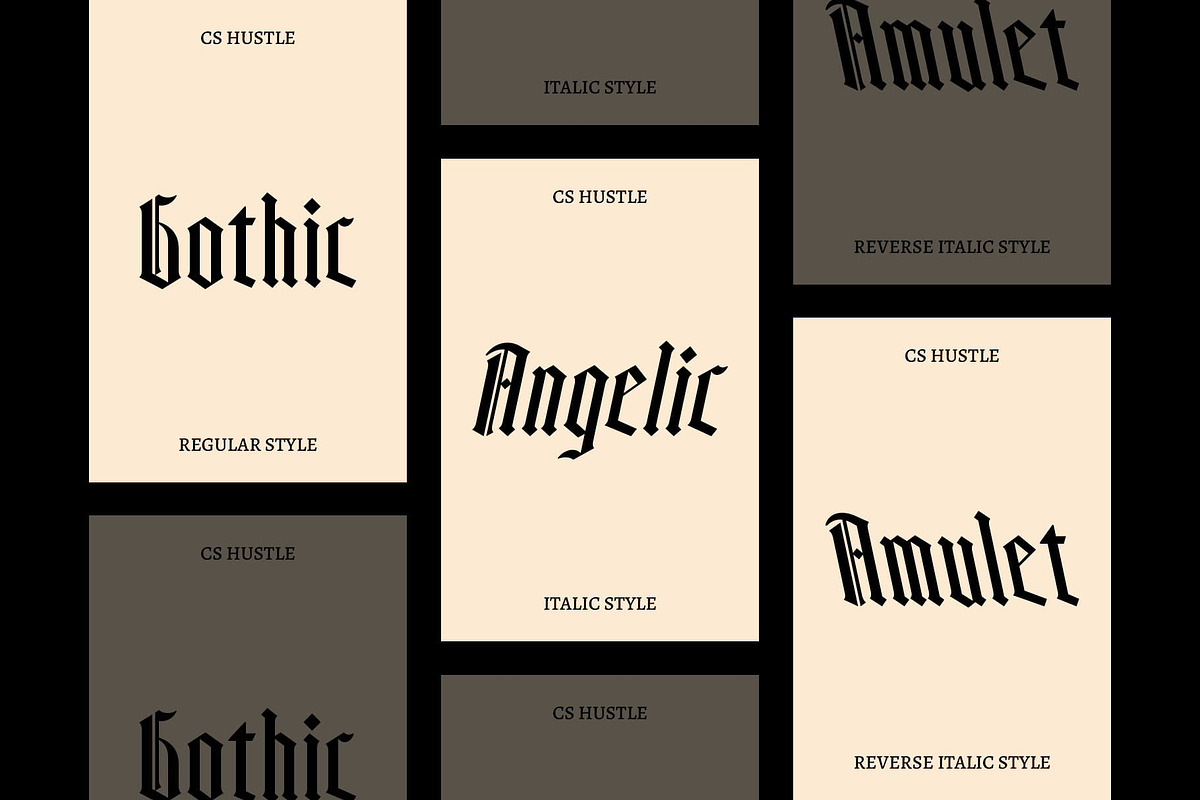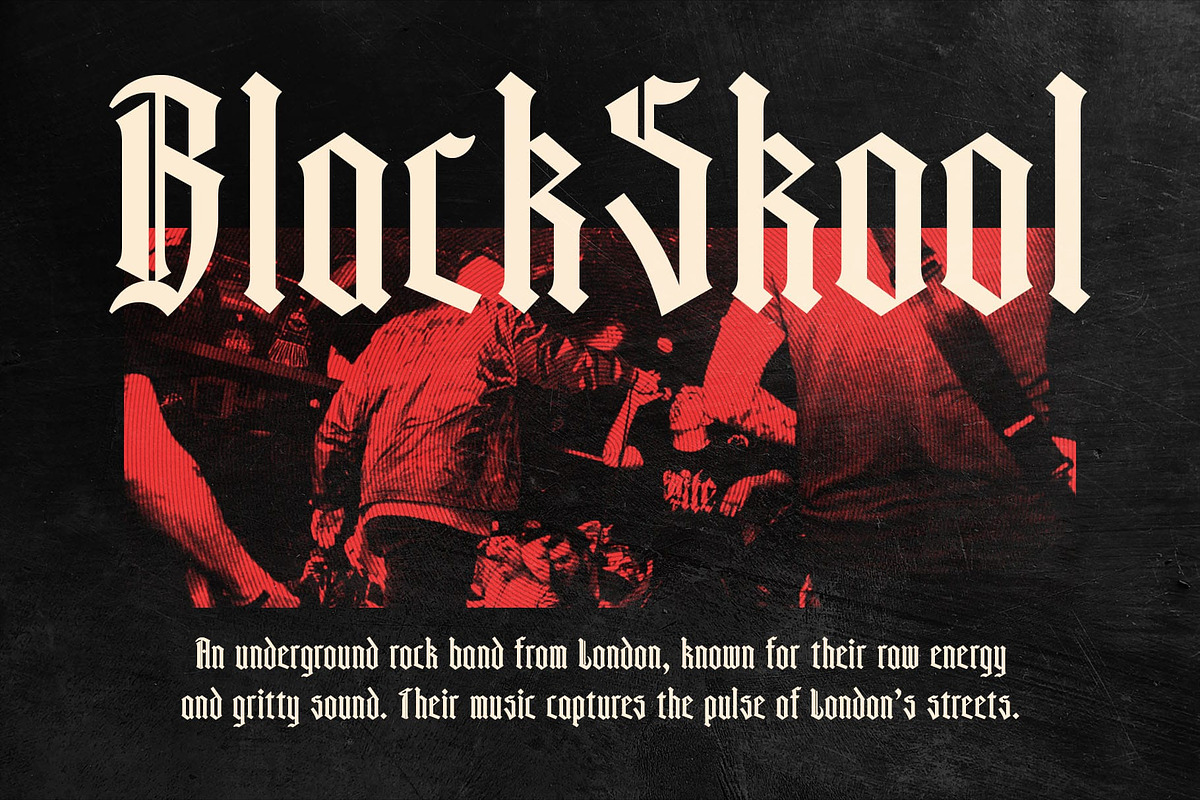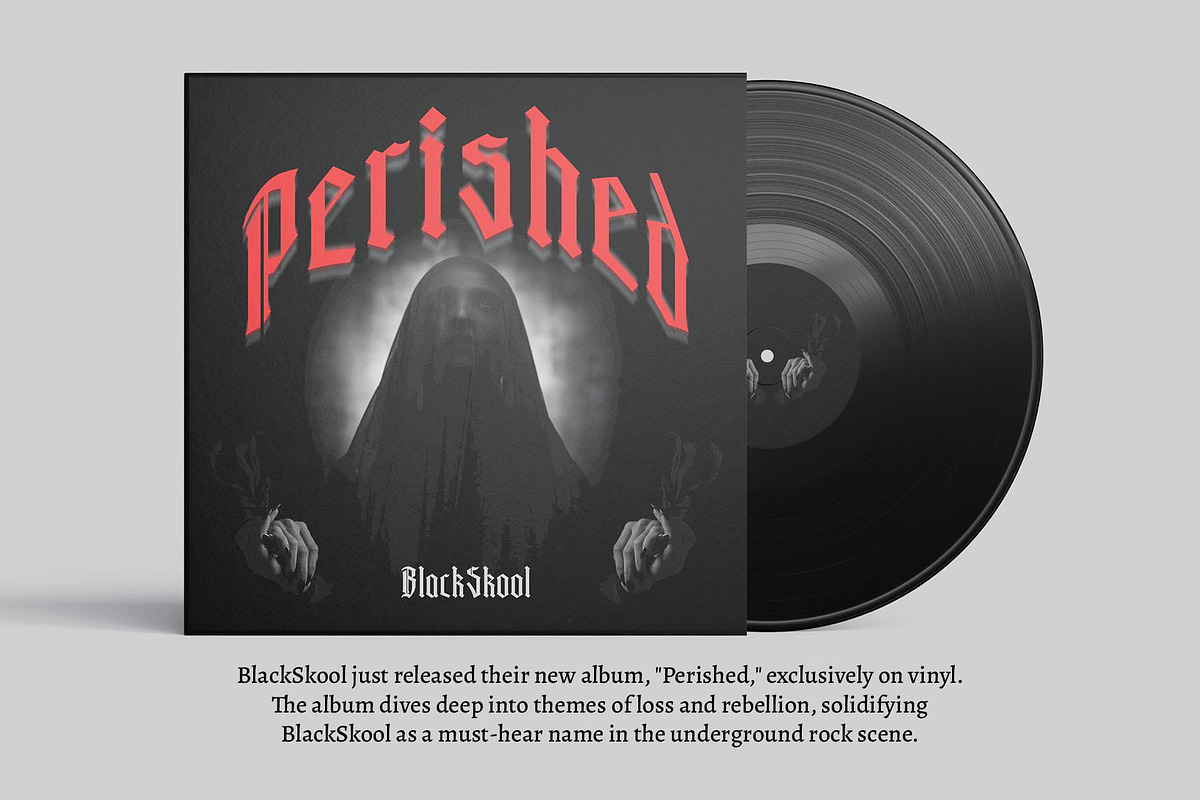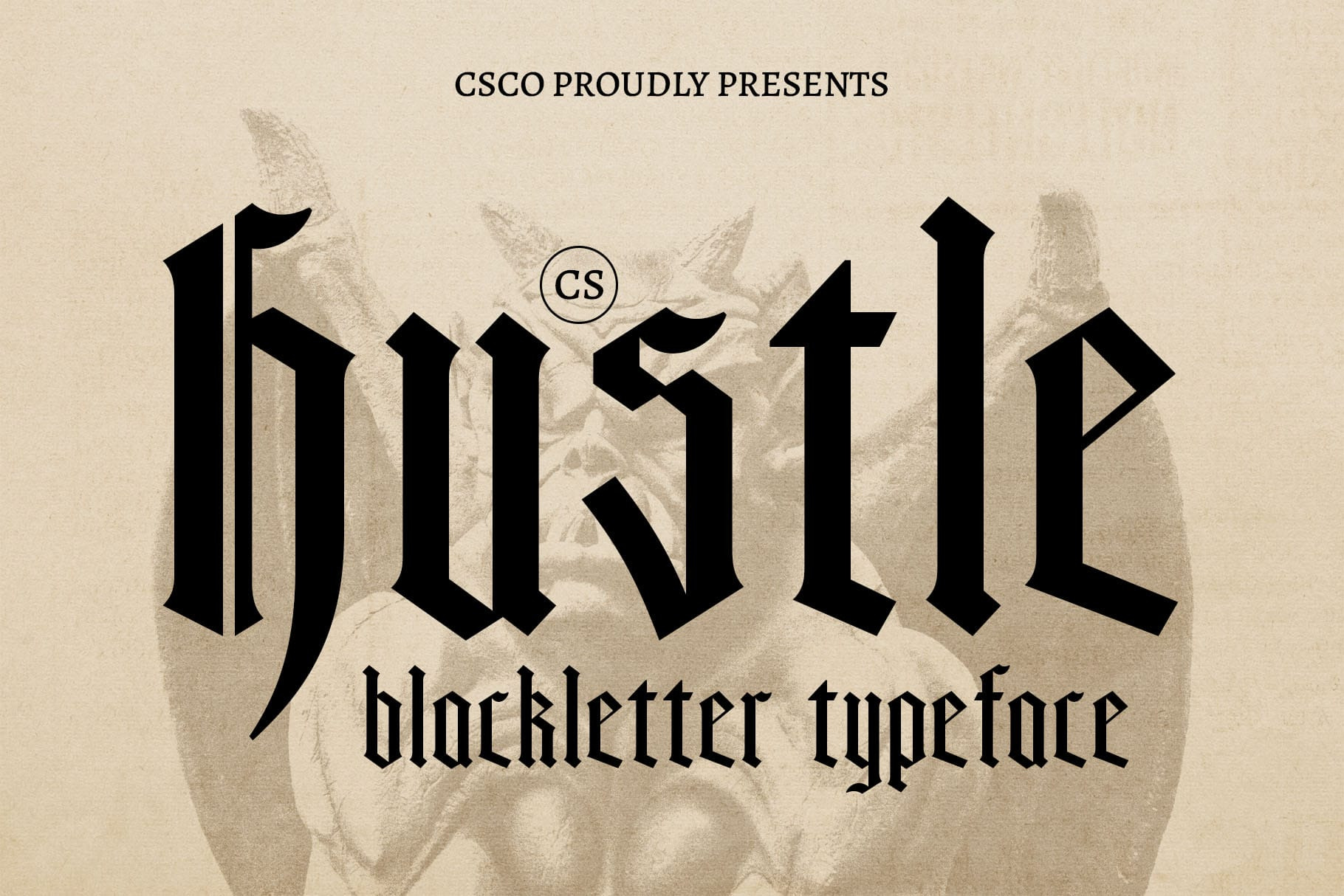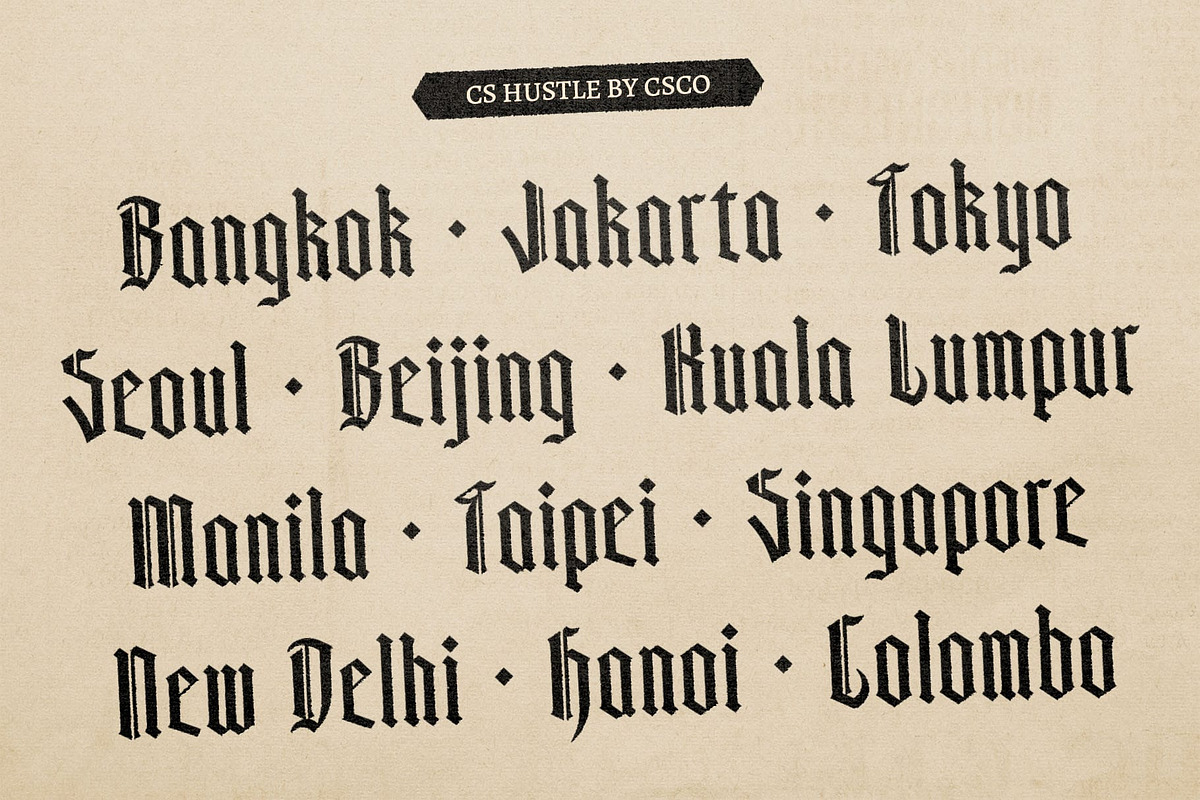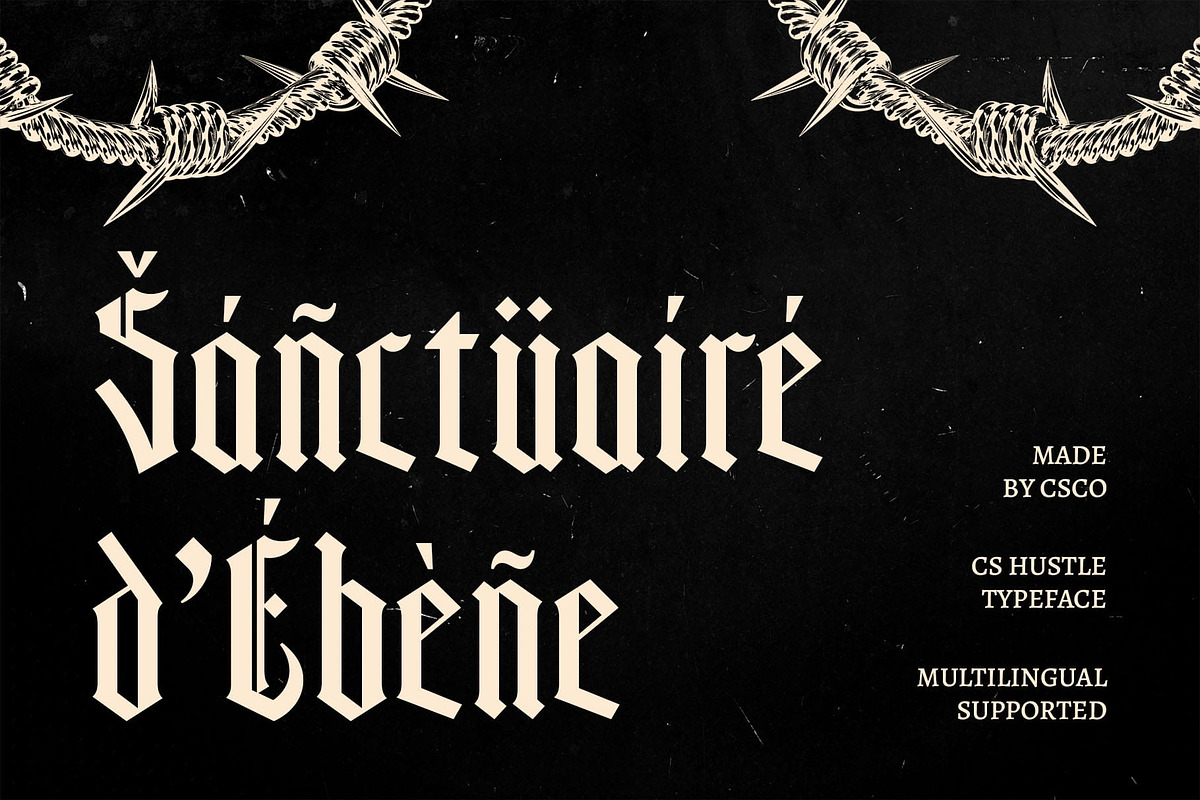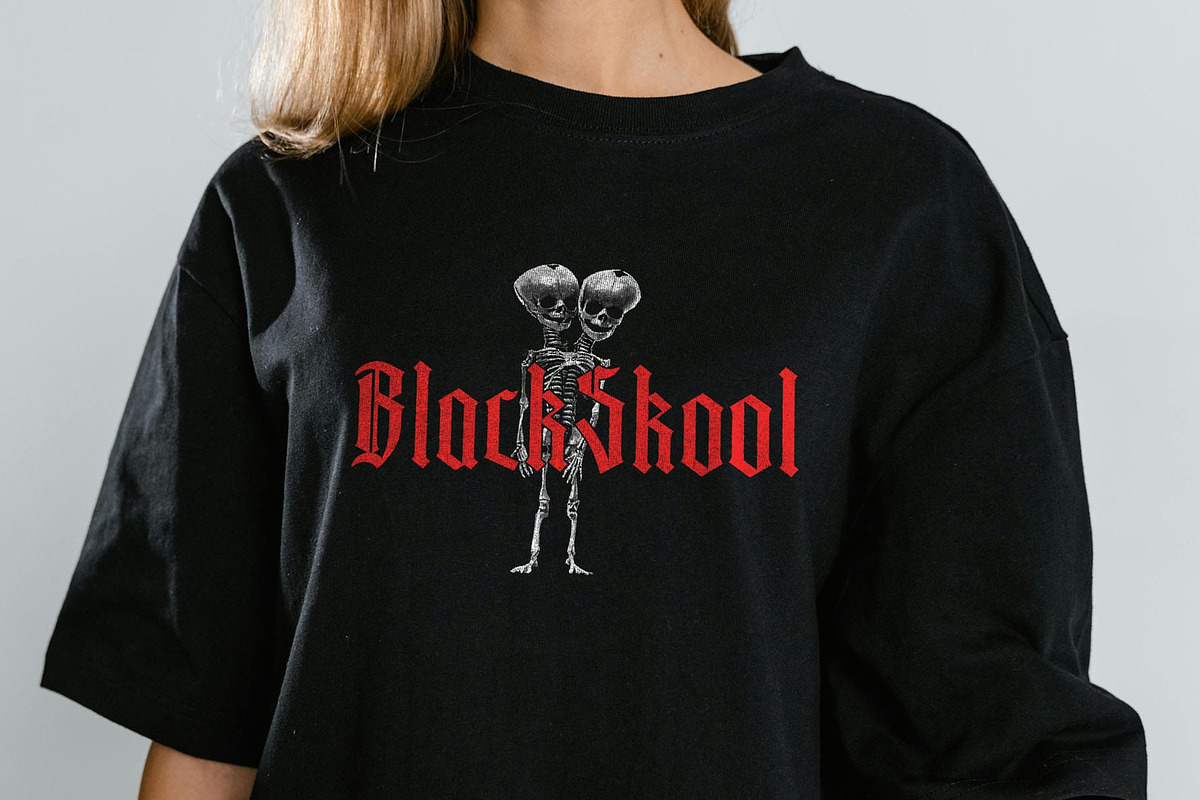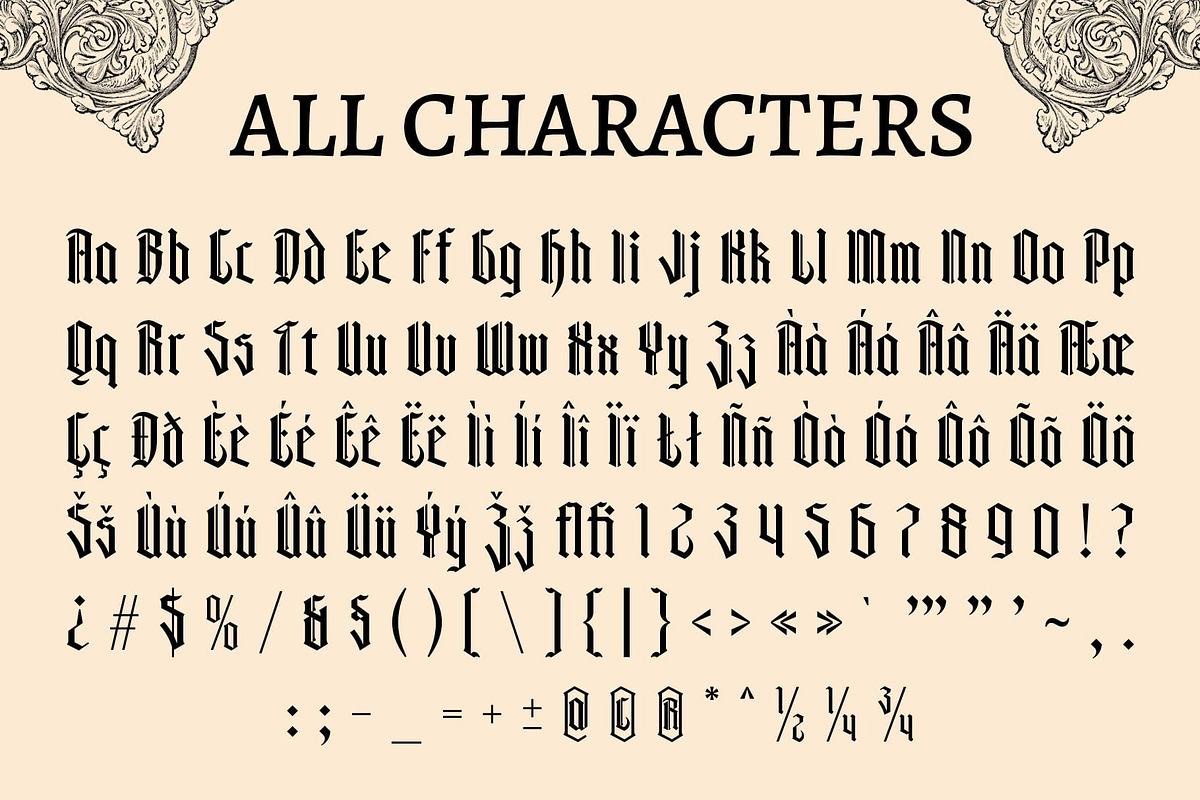
CS Hustle – Blackletter Font
CS Hustle – Blackletter Font: A Bold Fusion of Tradition and Modernity
Modern Blackletter with Gothic Roots CS Hustle – Blackletter Font is a contemporary take on the traditional Gothic style of blackletter typography. This bold blackletter display font combines sharp, angular letterforms and bold strokes with sleek, modern design elements, offering a distinctive, powerful look. The font captures the essence of historic blackletter while introducing a refined, streamlined aesthetic, making it an ideal choice for designs that demand both boldness and sophistication.
Bold, Edgy Aesthetic with Refined Detailing With its thick, strong strokes and intricate flourishes, CS Hustle retains the dramatic impact of traditional blackletter fonts, while the cleaner lines and structured forms provide a more polished, modern appeal. The design maintains the historical essence of Gothic typography but ensures better readability and versatility, making it perfect for contemporary branding, logos, and high-impact designs.
Perfect for Bold Branding and Strong Visuals CS Hustle is an ideal choice for any design project that requires a striking, memorable appearance. Whether used for logo designs, product branding, or promotional materials, this font makes a statement with its bold and energetic style. Its strong, angular forms convey a sense of power and determination, while the subtle refinements give it a more approachable, polished look.
- CS Hustle Regular
- CS Hustle Italic
- CS Hustle Reverse Italic